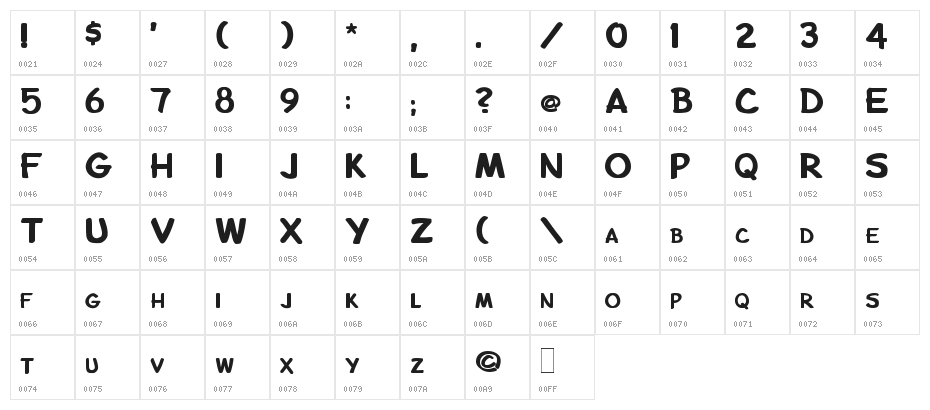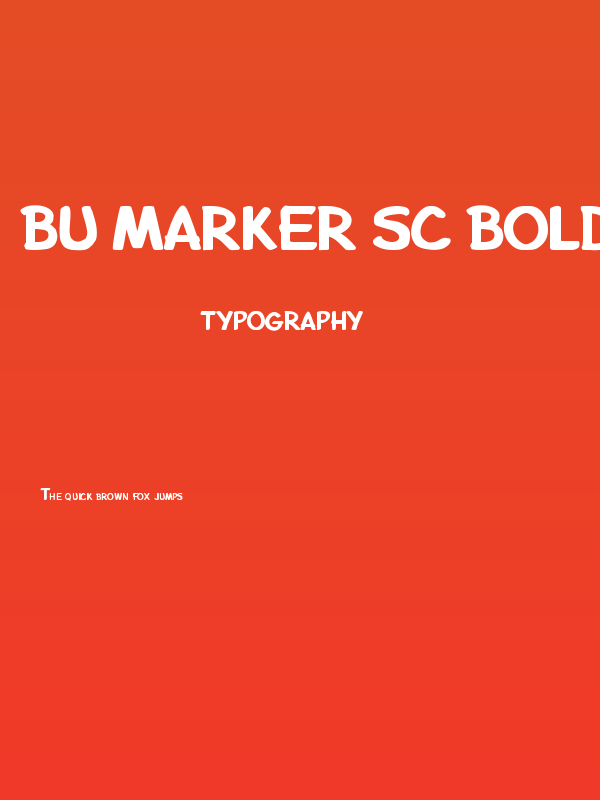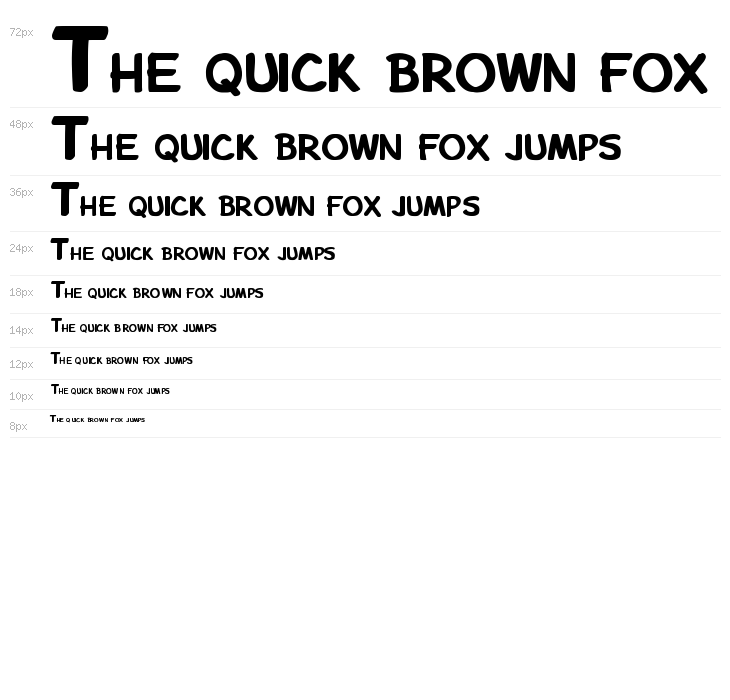
Bu Marker SC Bold Font
Bu Marker SC Bold Description
This font features bold, rounded characters with a playful and friendly appearance. The letters are thick and have a consistent stroke width, giving them a strong presence. The rounded edges soften the overall look, making it approachable and suitable for informal settings. The numbers and special characters maintain the same boldness and rounded style, ensuring uniformity across all glyphs. This font is highly legible and stands out due to its substantial weight and smooth curves.
| Proposed Projects | Ideal for children's books, playful branding, posters, and casual invitations. |